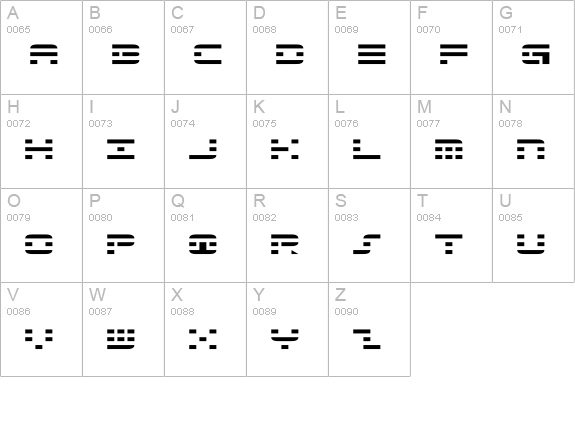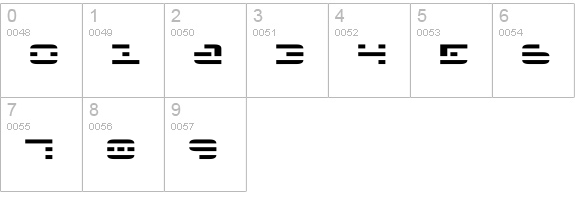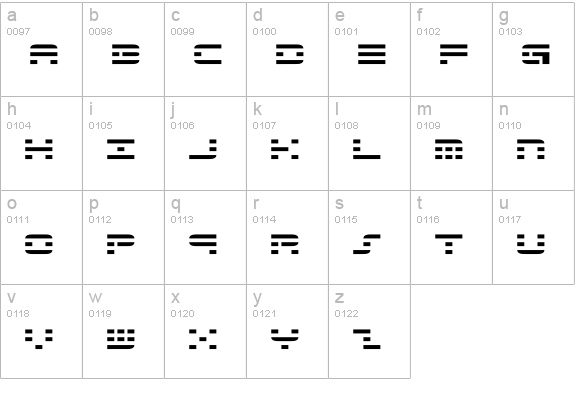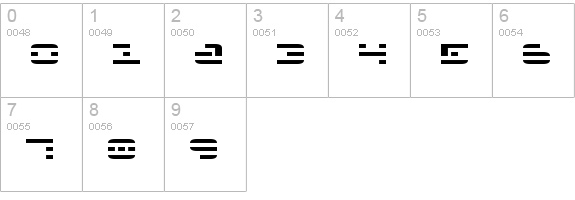
Aldos Nova Font Details
Aldos Nova is a modern and stylish font that exudes sophistication and elegance. Its sleek and clean lines make it a versatile choice for a wide range of design projects, from branding to editorial design. The geometric shapes and sharp angles give Aldos Nova a contemporary feel that is both eye-catching and easy to read. What sets Aldos Nova apart is that it is not only visually appealing but also free to download. That's right, you can get your hands on this stunning font at no cost at FontsMarket.com. With its generous licensing terms, Aldos Nova allows you to use it for personal and commercial projects without any restrictions. Whether you're designing a logo, creating a poster, or working on a website, Aldos Nova is the perfect choice to add a touch of sophistication to your work. Download this versatile and elegant font today and elevate your designs to the next level.